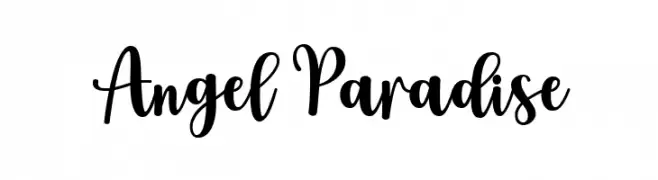
• AngeGardien
A decorative font with whimsical, angelic motifs and bold, stylized characters.
• Angel
An ornate and decorative font with intricate swirls and embellishments.
• Angel
A playful, casual handwritten font with rounded edges and a whimsical style.
• Angel 1
A bold, angular font with unique cutouts and an artistic, edgy style.
• AngeL Bilsh - Demo
A bold, decorative font with ornate serifs and vintage flair.
• Angel Brotxa Regular
A bold, brush-style font with dynamic and expressive strokes.
• Angel Cry
A playful, handwritten cursive font with a smooth and flowing style.
• Angel Eyes Italic
A dynamic and elegant italic font with smooth, flowing letterforms.
• ANGEL FIRE
A bold, dynamic script font with brush-like strokes and a handwritten style.
• Angel Light
• Angel Lust
• Angel Maleficent
An elegant and whimsical script font with ornate curls and loops.
• Angel Normal
• Angel of Blood
An ornate and decorative script font with elaborate swirls and flourishes.
• Angel of Blood Light
A dramatic, calligraphic font with sharp, angular strokes and a gothic flair.
• Angel Paradise
• Angel rhapsody Regular
A bold, Gothic-style font with intricate details and a dramatic flair.
• Angel Rise Free Regular
A flowing, cursive font with an elegant, handwritten style.
• Angel Rose Demo
• Angel Signature
A sophisticated, elegant handwritten script with flowing, interconnected letters.
• ANGEL TEARS trial
An elegant, high-contrast script font with ornate swashes and flowing letterforms.
• Angel Valley Demo
A fluid and elegant script font with interconnected, delicate strokes.